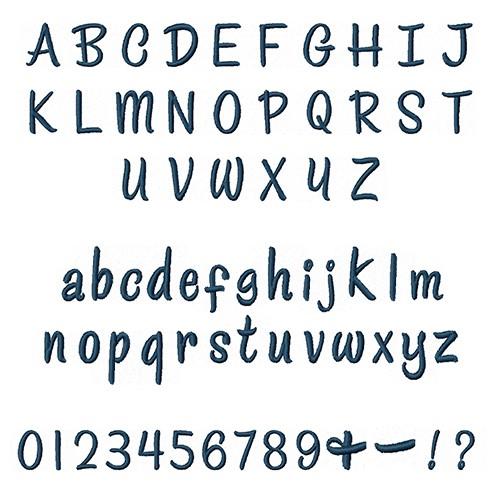
Foxy Ladybug Designs is happy to present Tiny Little Font machine embroidery font which has Playful script style machine embroidery font ideal for adding a friendly touch to projects like baby blankets and apparel. Available in PES, DST, and 6 other formats. included. If you would like to view more embroidery fonts and alphabets please search our embroidery fonts page.